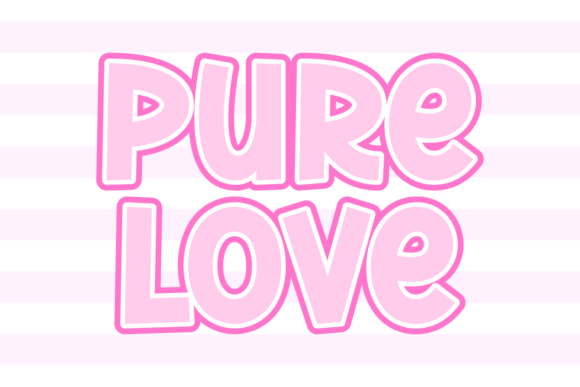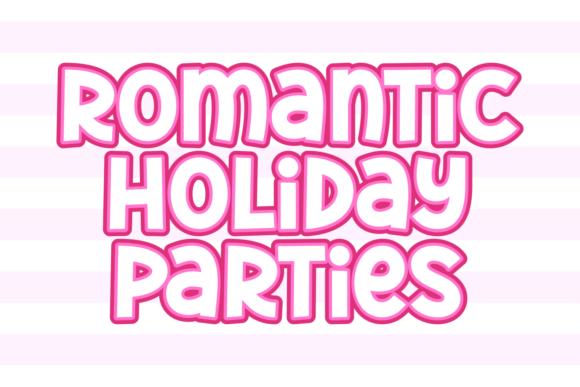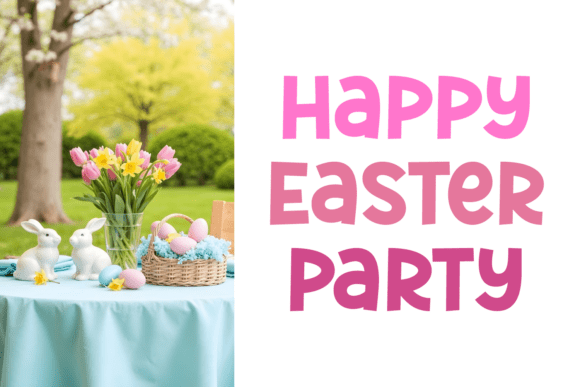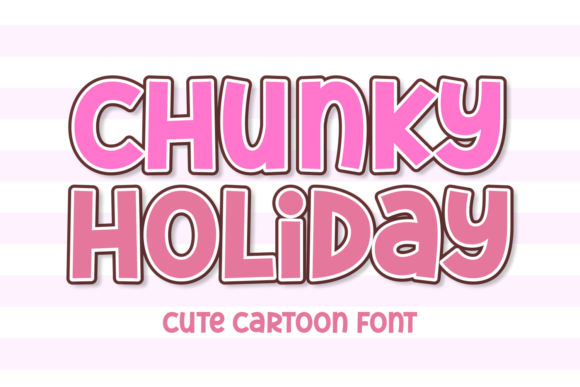
Inject a Burst of Fun into Your Designs with Chunky Holiday Font
Are you looking for a font that can add a playful touch to your designs? Look no further than Chunky Holiday, a cute cartoon font that’s built for maximum impact. This fun and festive font is perfect for designers and crafters who want to create eye-catching and celebratory designs for various projects.
What is Chunky Holiday Font?
Chunky Holiday is a unique and playful font that’s designed to bring a burst of fun into your designs. Its chunky and cartoon-like style makes it perfect for creating festive party invitations, playful social media graphics, and cheerful children’s apparel. The font’s bold and rounded edges give it a friendly and approachable feel, making it ideal for designs that require a touch of whimsy and fun.
Key Features of Chunky Holiday Font
- Chunky and Cartoon-like Style: Chunky Holiday has a distinctive chunky and cartoon-like style that’s perfect for creating playful and fun designs.
- Maximum Impact: The font’s bold and rounded edges make it perfect for creating designs that require maximum impact and attention-grabbing.
- Versatile: Chunky Holiday is a versatile font that can be used for various design projects, including party invitations, social media graphics, children’s apparel, and more.
- Supports Outlines and Shadows: The font supports outlines and shadows, making it easy to add depth and dimension to your designs.
- Bright Color Palettes: Chunky Holiday looks great with bright color palettes, making it perfect for creating designs that require a pop of color.
Use Cases for Chunky Holiday Font
Chunky Holiday is a versatile font that can be used for various design projects. Here are some use cases where the font can shine:
- Festive Party Invitations: Use Chunky Holiday to create festive and fun party invitations that will grab the attention of your guests.
- Playful Social Media Graphics: The font is perfect for creating playful social media graphics that will add a touch of fun and whimsy to your social media posts.
- Cheerful Children’s Apparel: Chunky Holiday is a great font for designing cheerful children’s apparel, such as t-shirts, hoodies, and more.
- Holiday Cards and Posters: Use the font to create festive holiday cards and posters that will add a touch of fun and celebration to your designs.
Tips for Using Chunky Holiday Font
Here are some tips for using Chunky Holiday font:
- Experiment with Bright Color Palettes: The font looks great with bright color palettes, so don’t be afraid to experiment with different colors and combinations.
- Add Outlines and Shadows: Adding outlines and shadows can give your designs a 3D pop and make them more visually appealing.
- Use the Font for Headlines and Titles: Chunky Holiday is perfect for headlines and titles, so use it to add a touch of fun and whimsy to your designs.
- Pair it with Other Fonts: The font can be paired with other fonts to create a unique and visually appealing design.
| Font Name | Chunky Holiday Font |
| Author | Dito (7NTypes) |
Chunky Holiday is a fun and festive font that’s perfect for designers and crafters who want to add a playful touch to their designs. Its chunky and cartoon-like style makes it perfect for creating festive party invitations, playful social media graphics, and cheerful children’s apparel. With its versatile design and support for outlines, shadows, and bright color palettes, Chunky Holiday is a great addition to any designer’s toolkit.